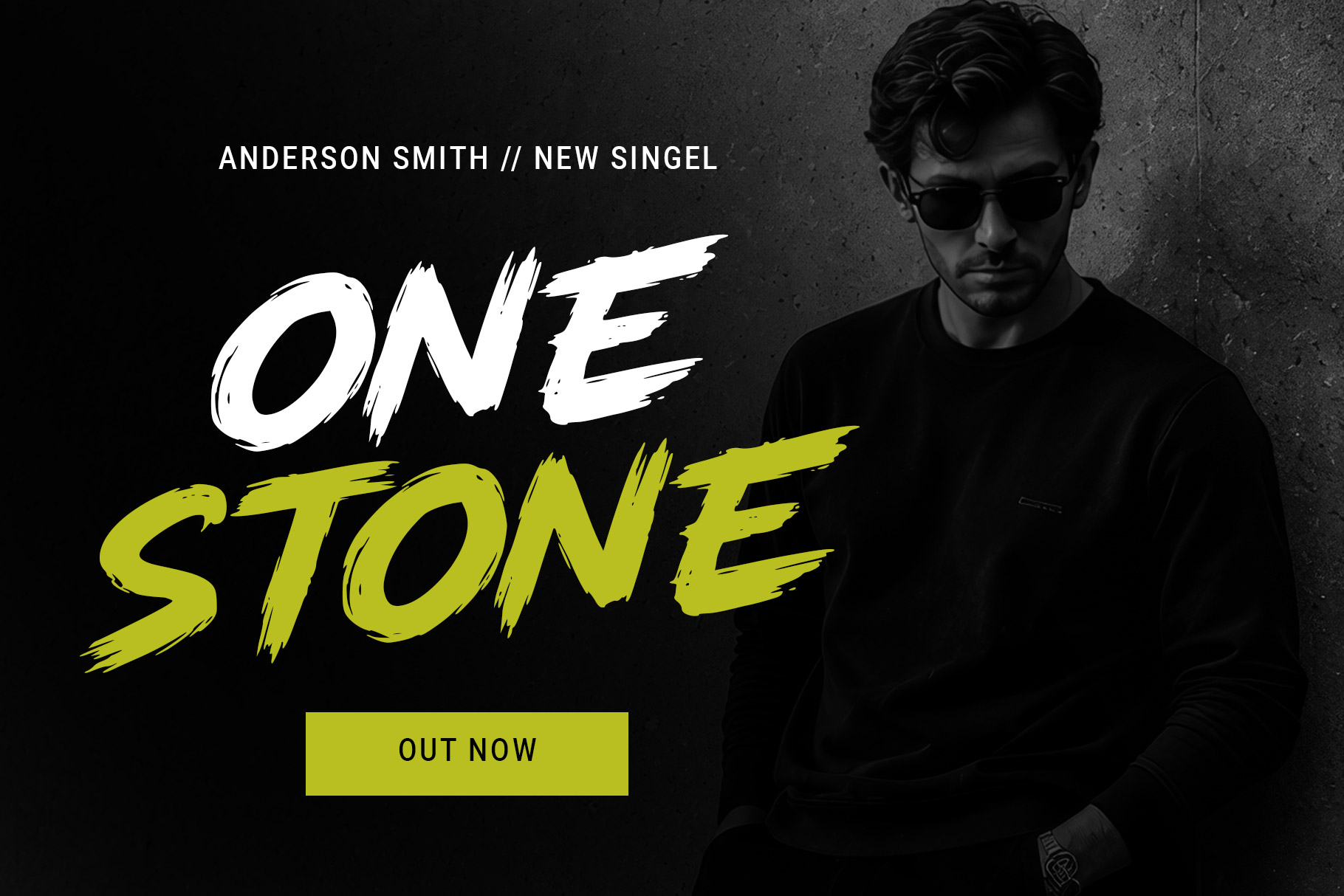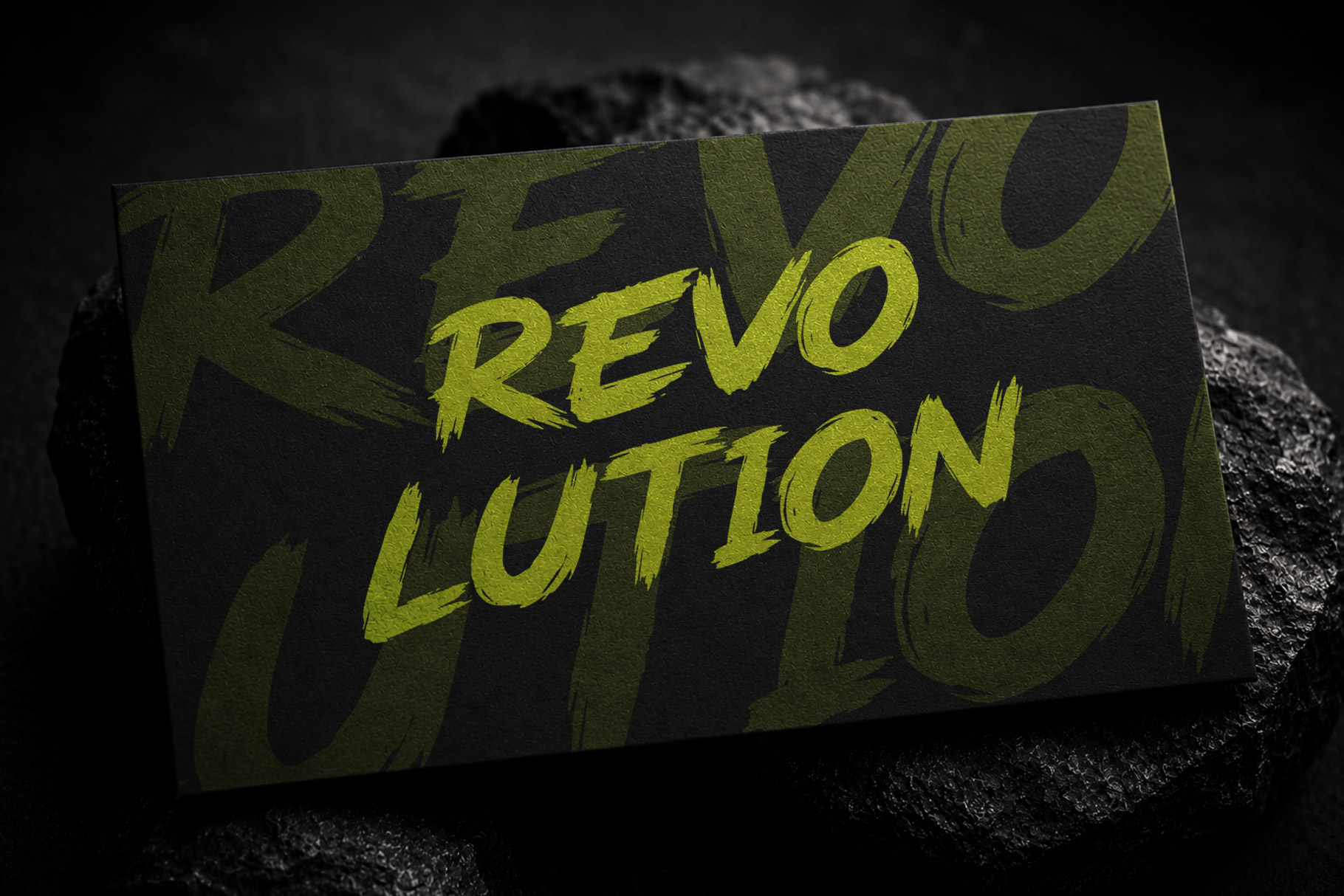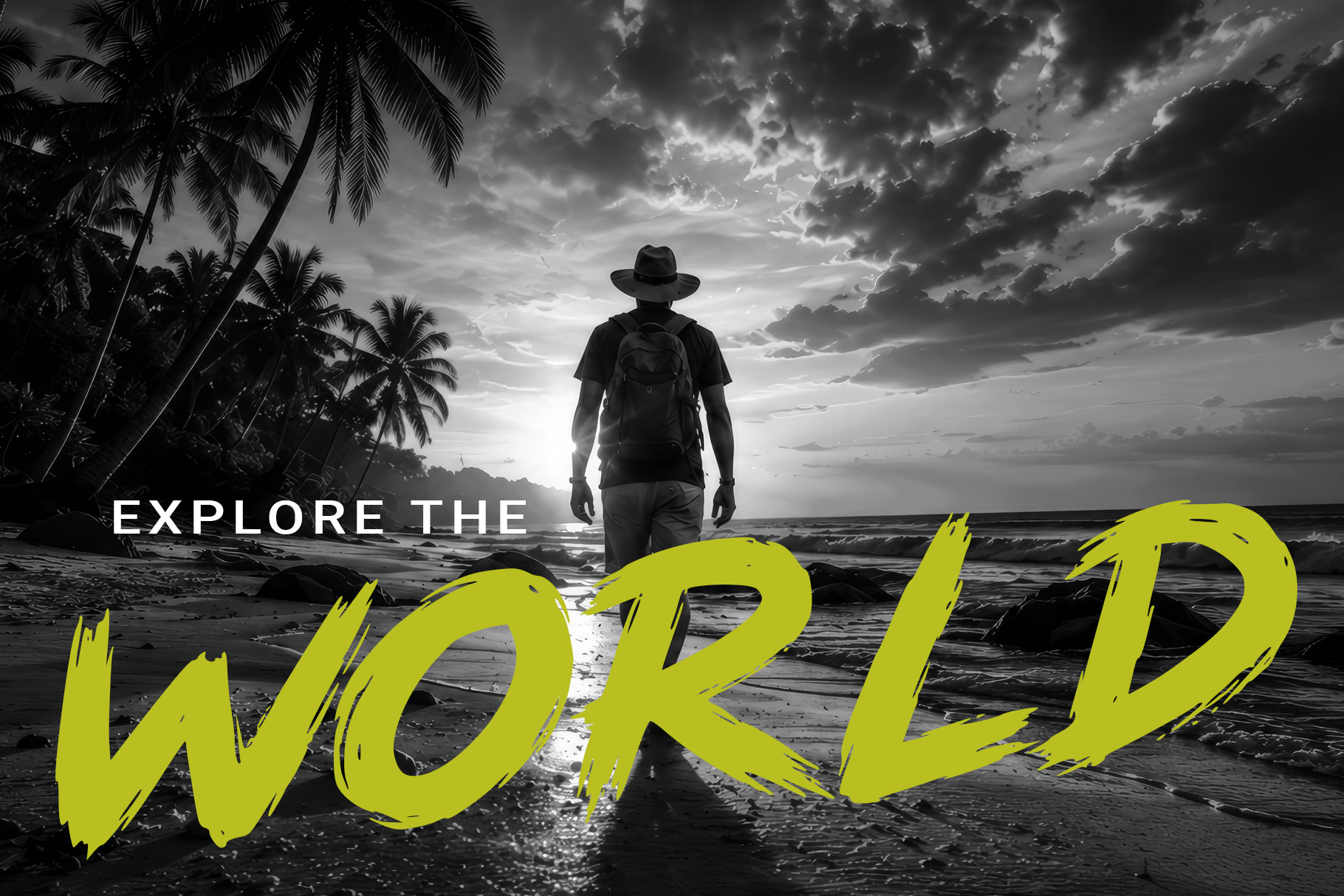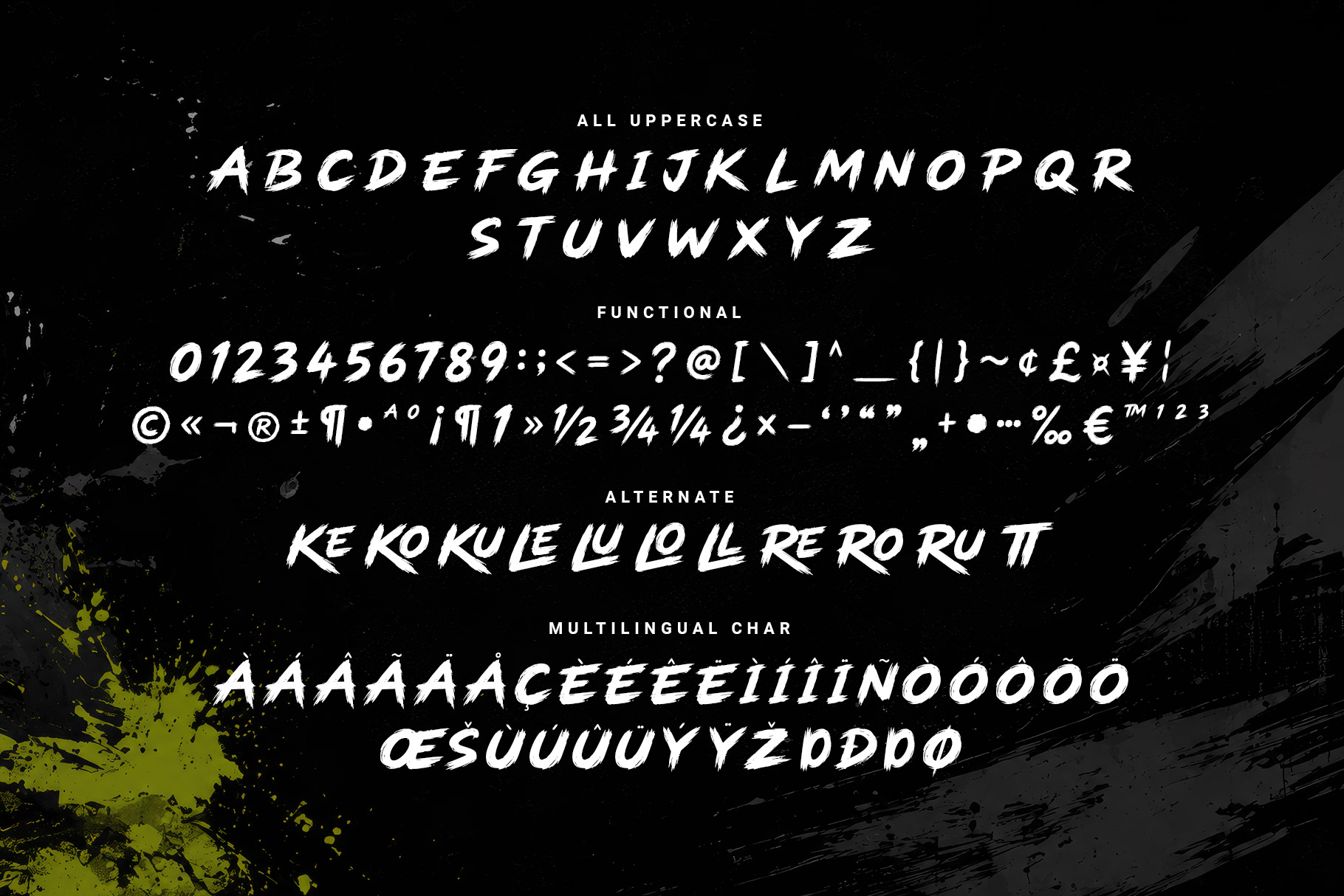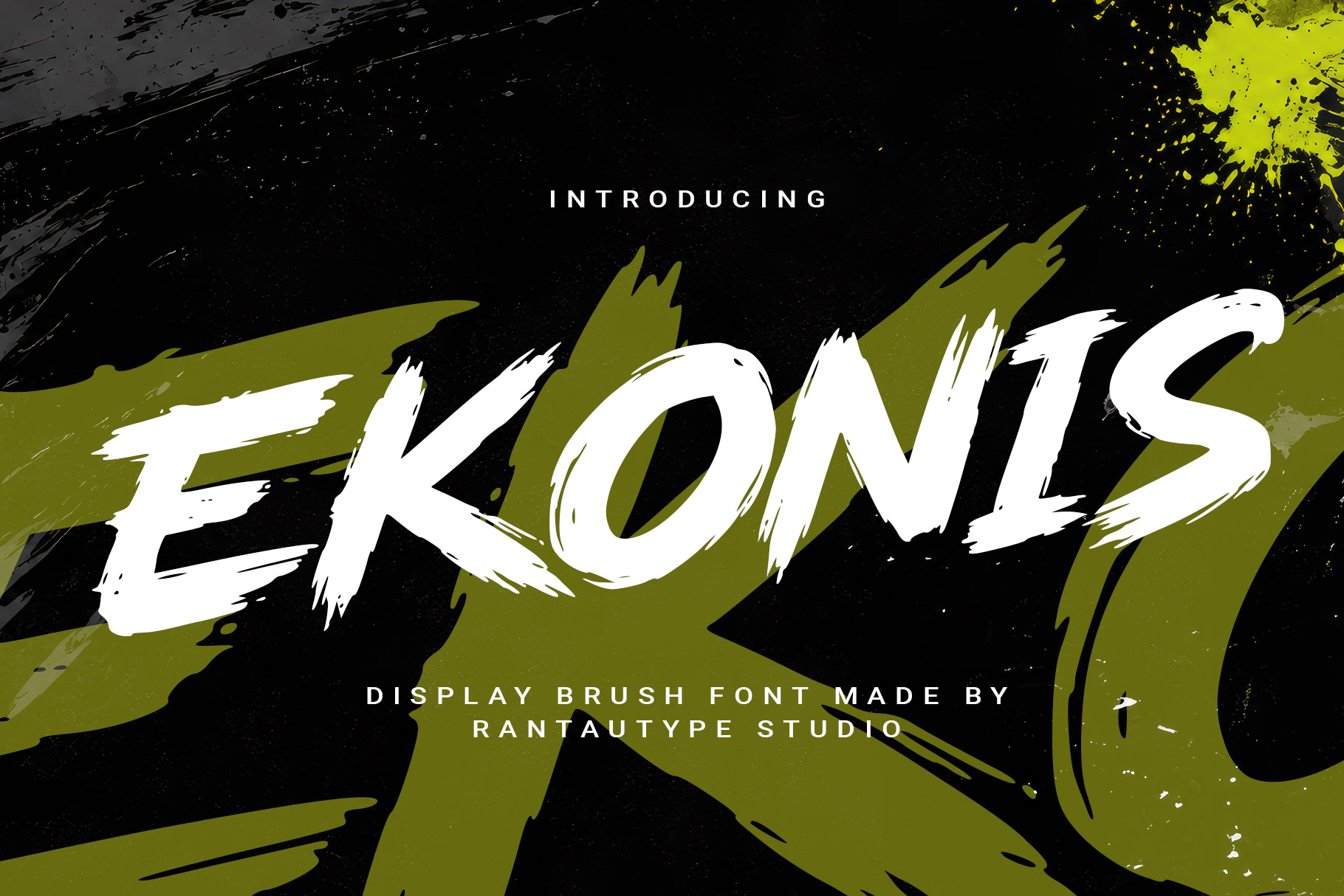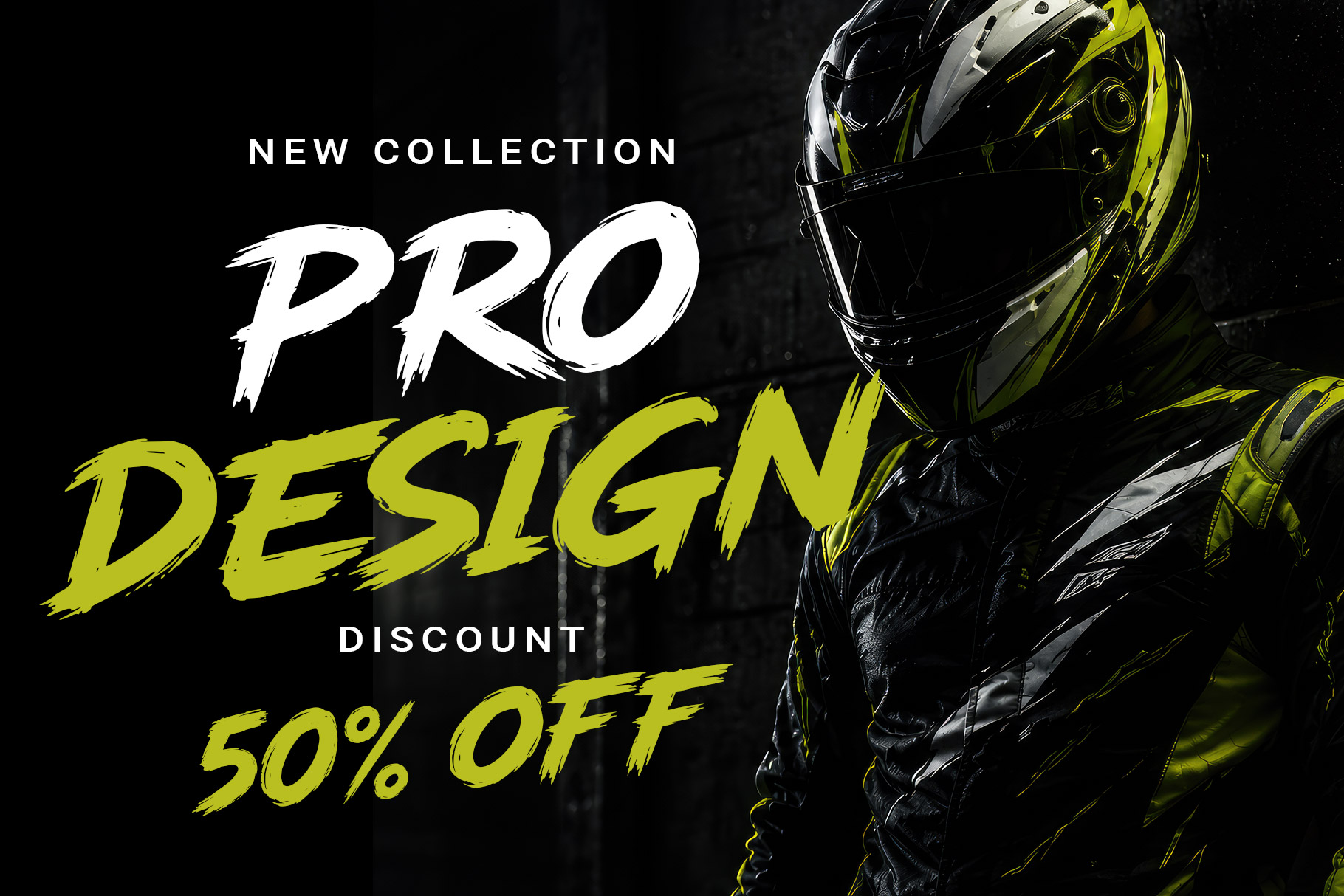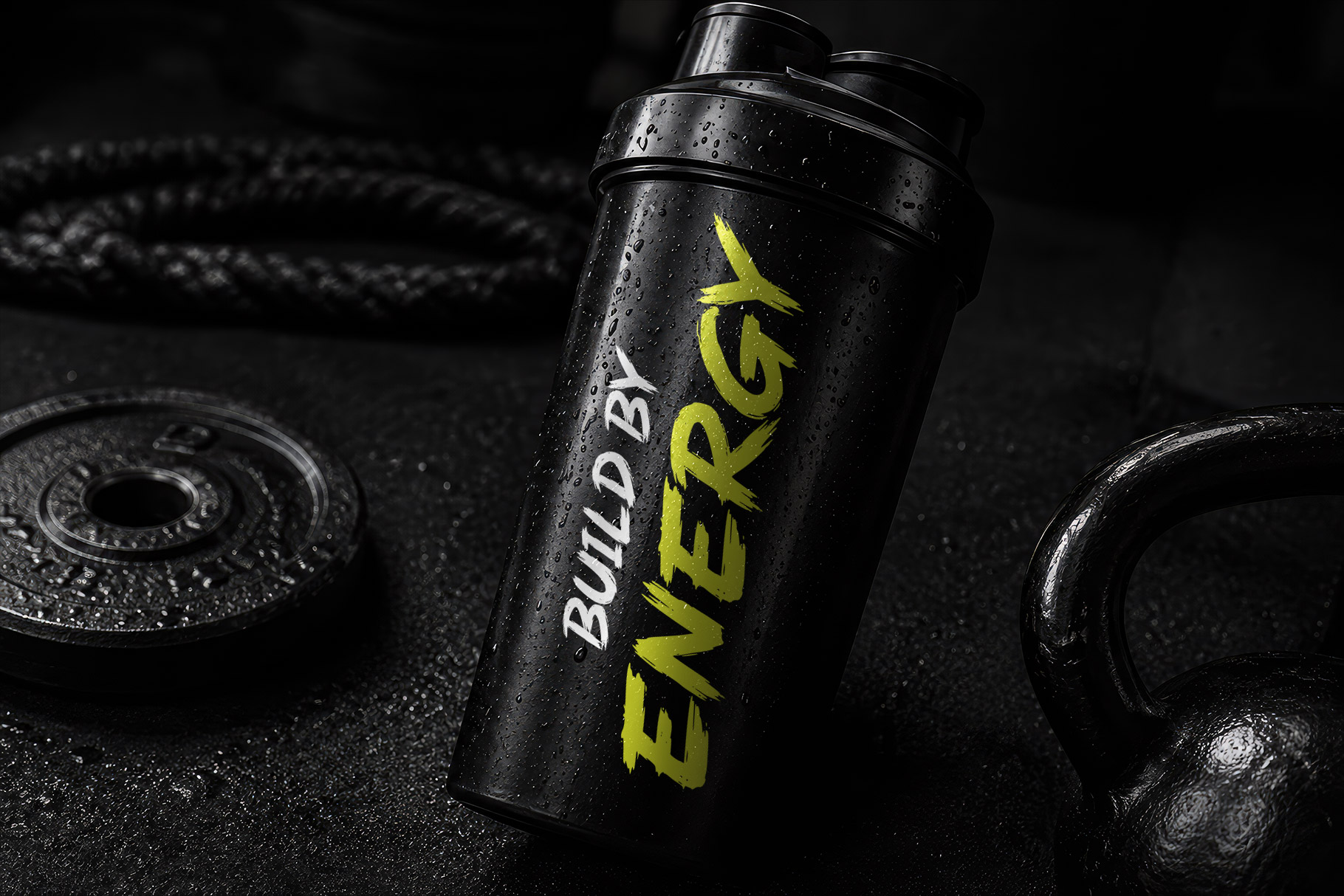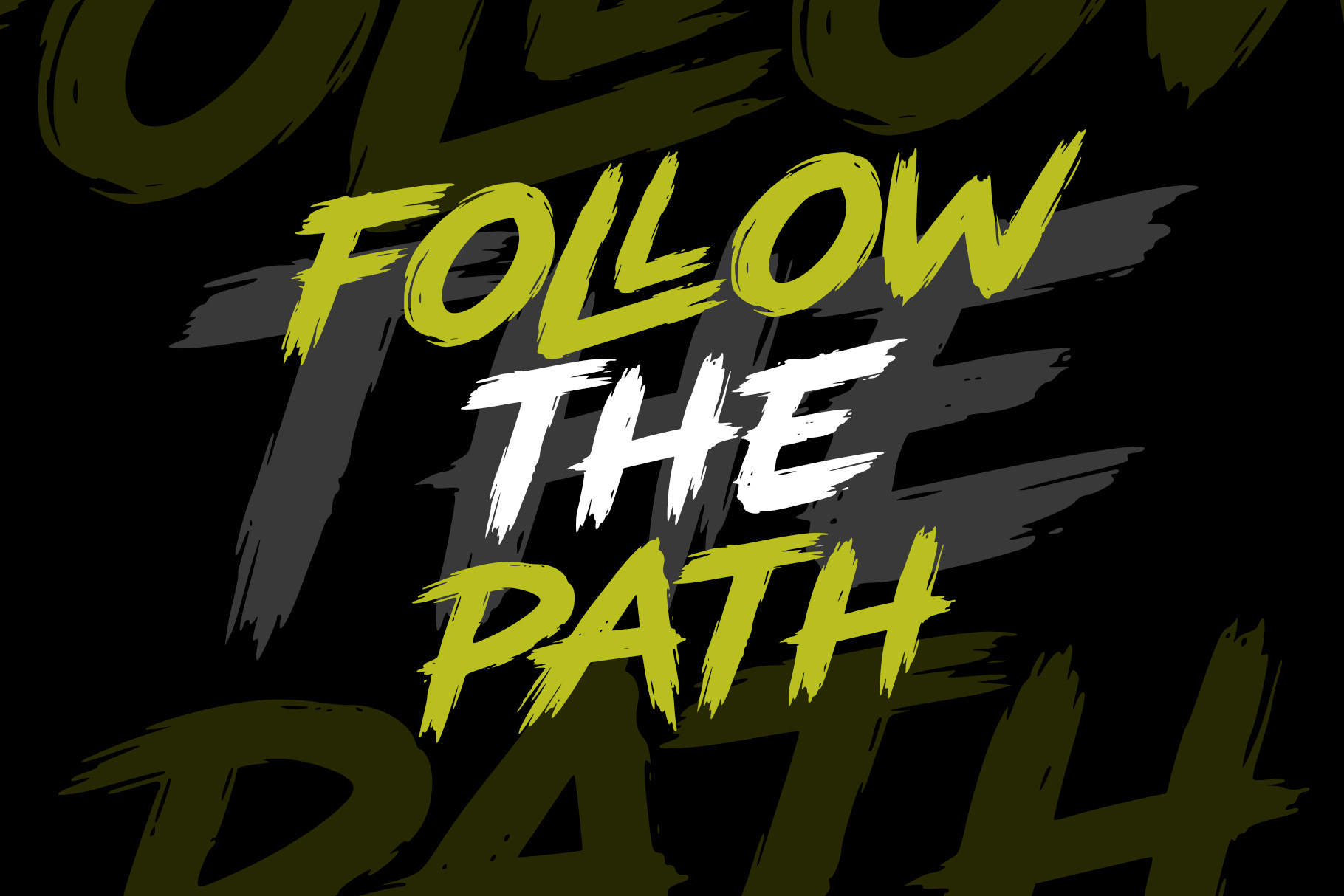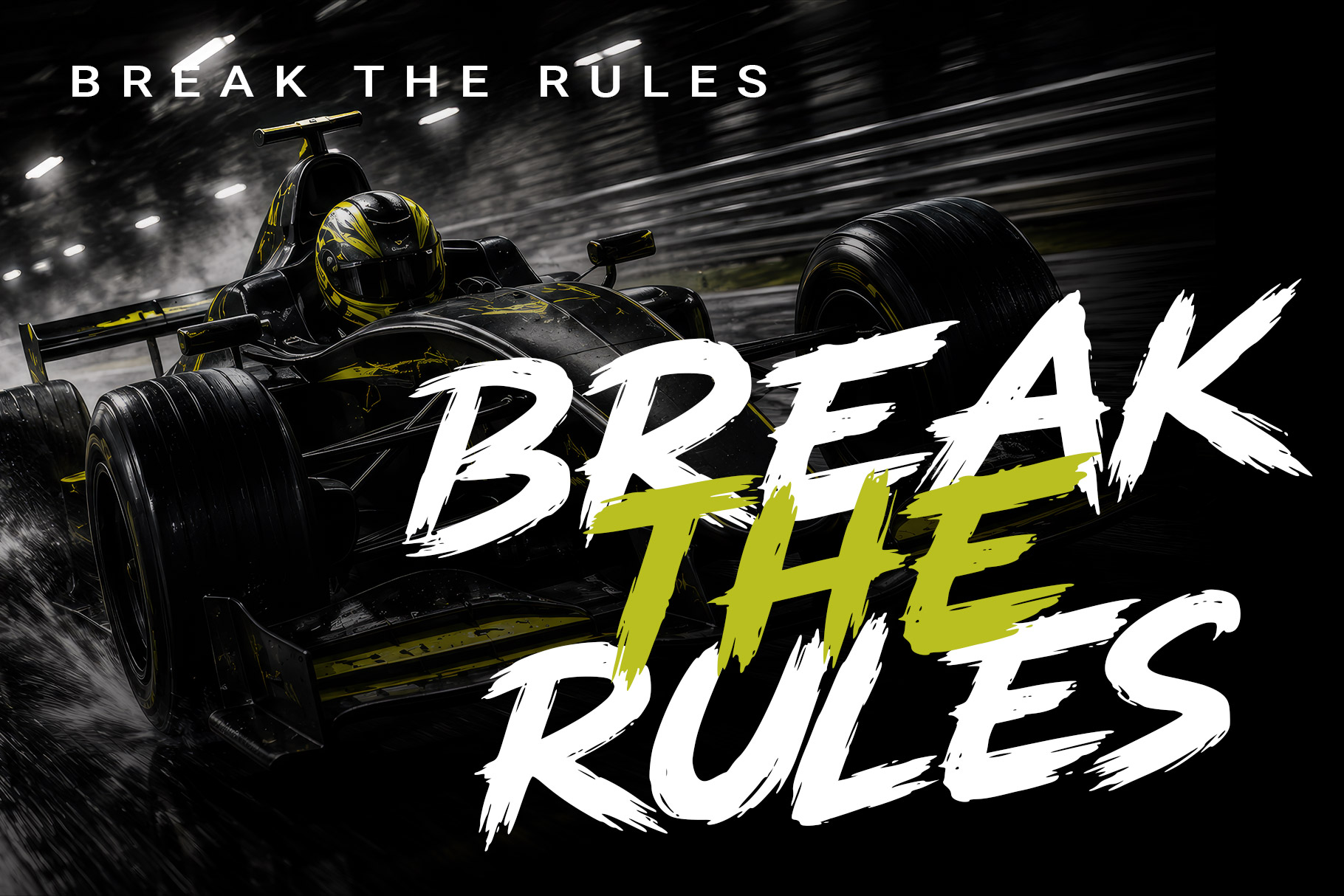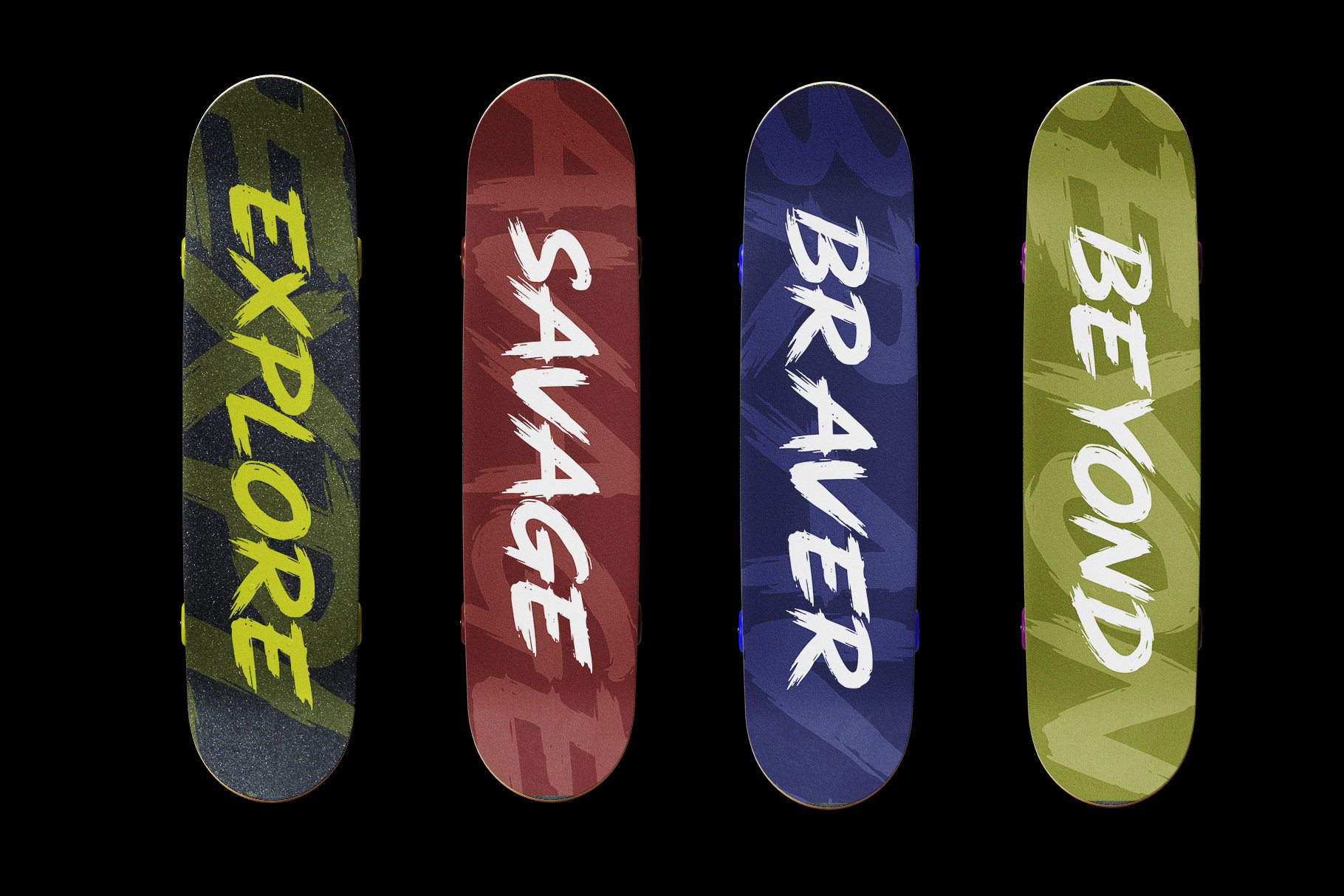
Ekonis is bold display brush font delivers raw energy, expressive movement, and a rebellious handmade character. Featuring dynamic strokes, rough edges, organic textures, and dramatic letterforms, it creates an authentic hand-painted aesthetic with strong visual impact.